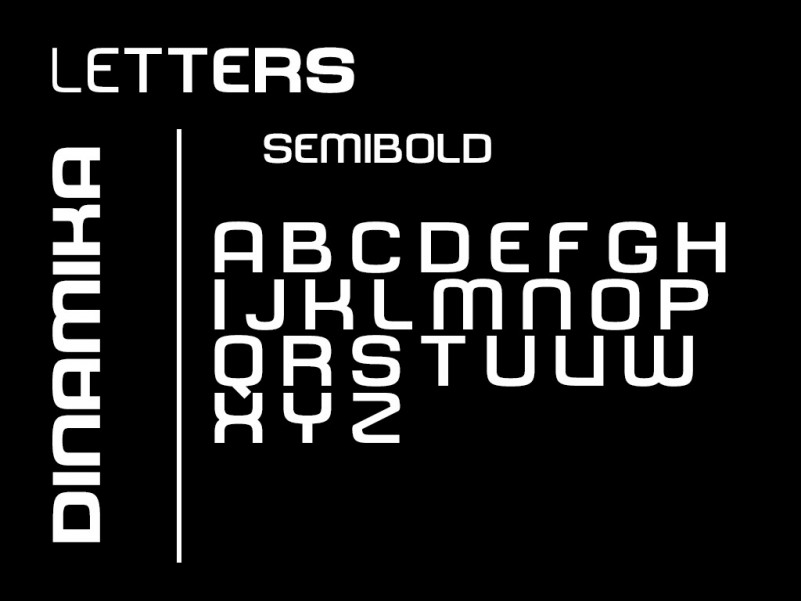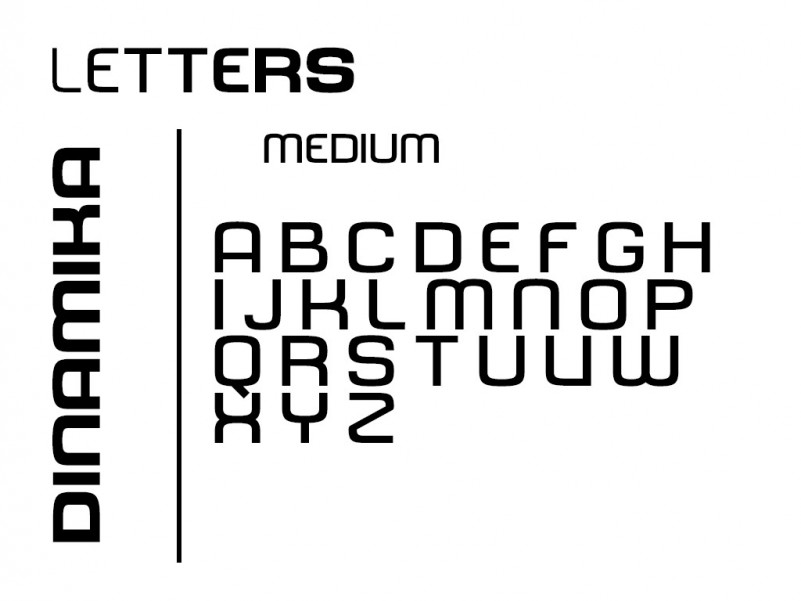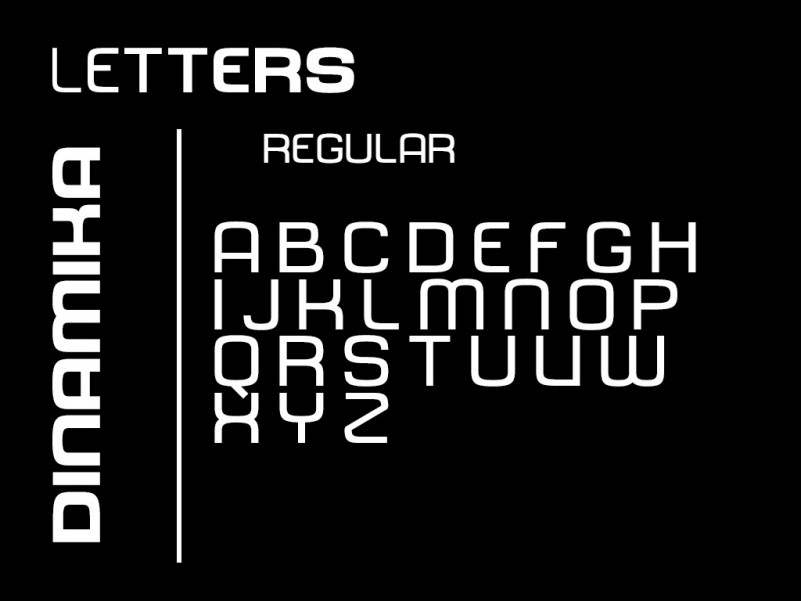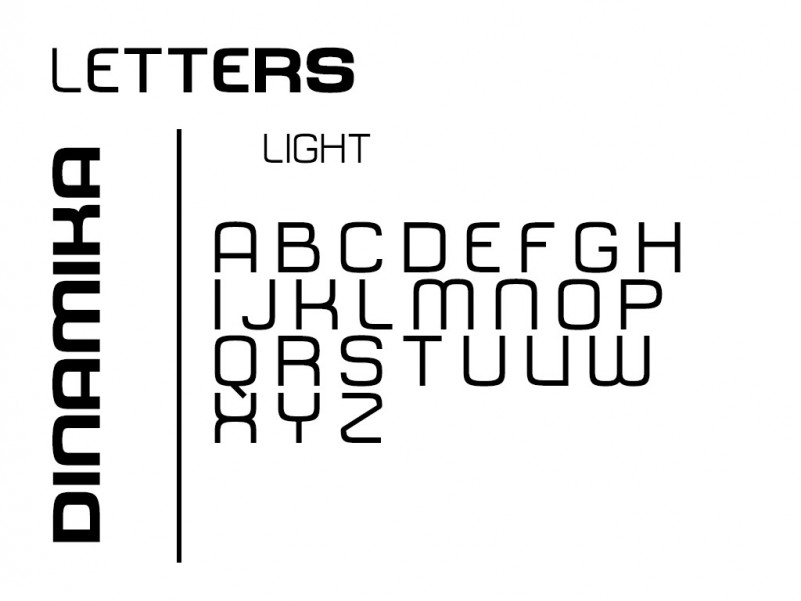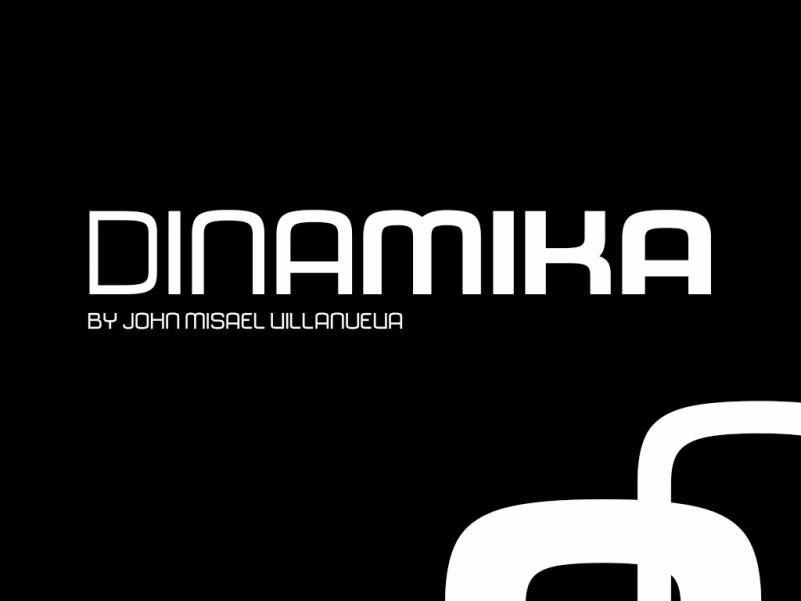
Dinamika Font Family
Hello! Dinamika Sans is a sans family of 7 weights ranging from hairline to extra bold. It’s a legible face with straightforward geometry spiced with lovely humanist terminals. Some strokes are cut at an angle to enhance its identity. This typeface is perfect for headlines, big text, branding, logotypes & display usage. This font is also perfect for creating outstanding logos, promotional content and marketing graphics that can really grab attention from your visitors.